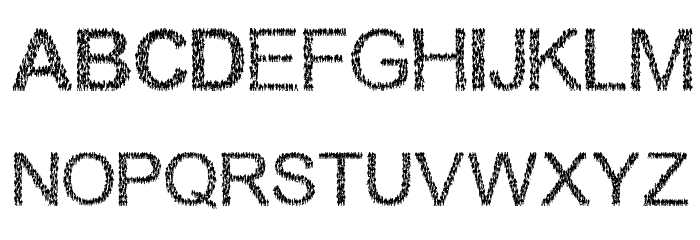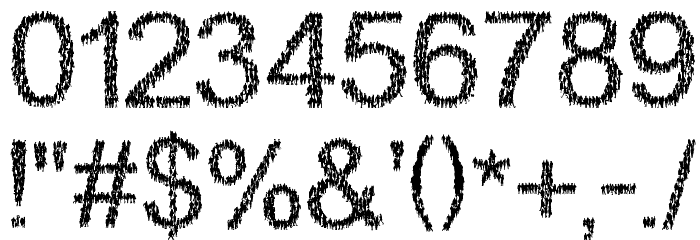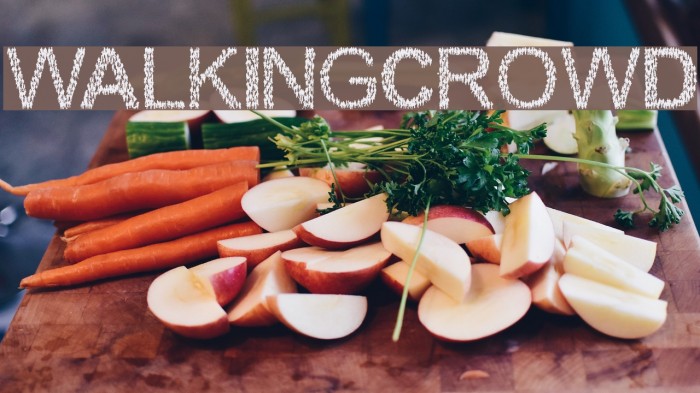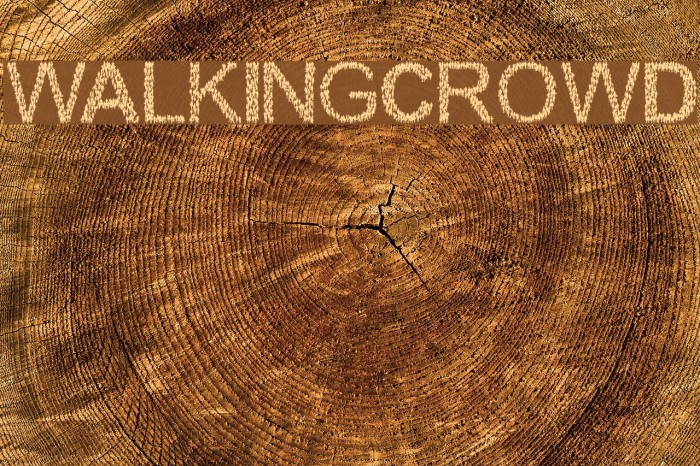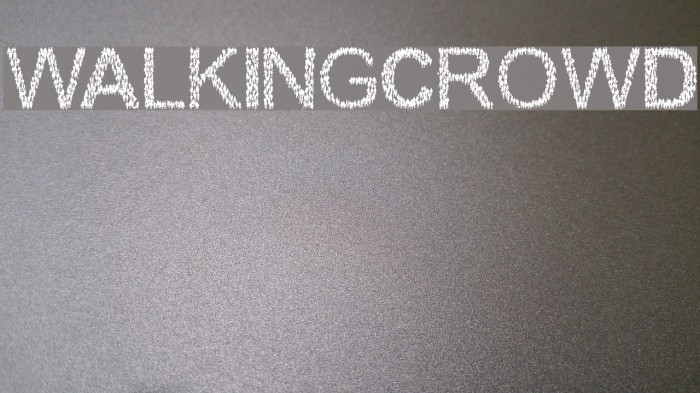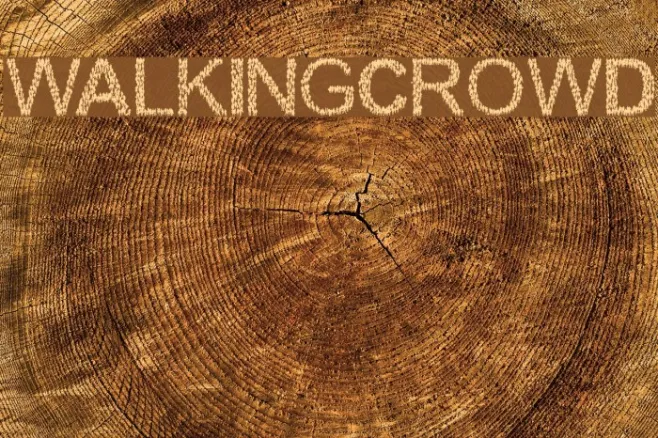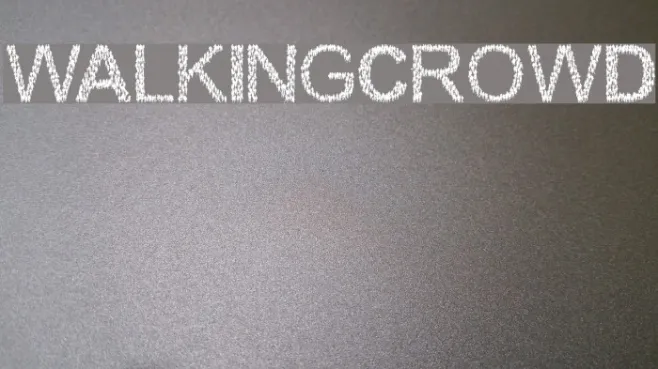
WalkingCrowd Font
This font features a unique and playful design, where each character is composed of tiny, walking figures. The characters are bold and have a textured appearance, giving them a dynamic and lively feel. The font maintains a consistent size and shape across all letters and numbers, ensuring readability while adding a creative twist. The special characters are equally detailed, making this font suitable for eye-catching designs. Its distinct style makes it ideal for projects that require a fun and engaging visual element.
A playful font with characters made of tiny walking figures, offering a bold and textured look.
- Proposed Projects: Ideal for posters, event invitations, children's book covers, and any project needing a whimsical touch.